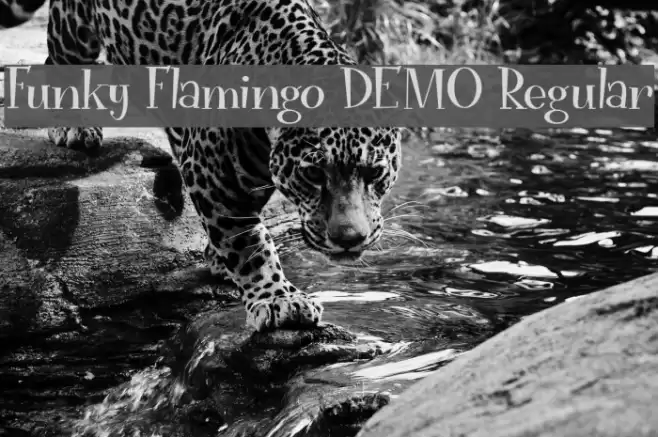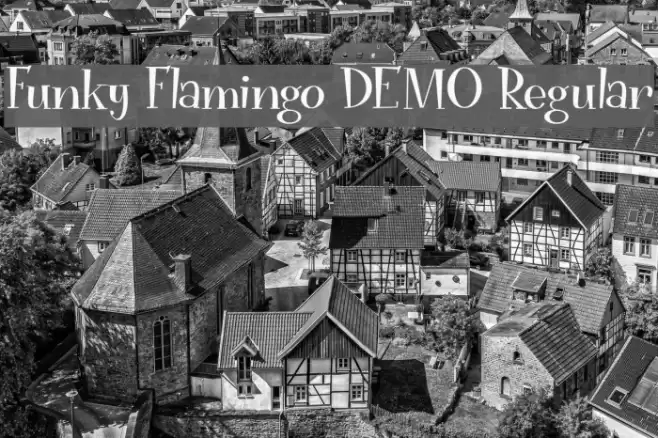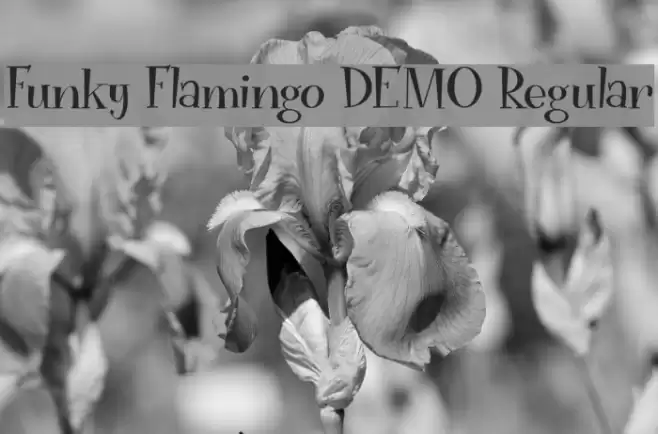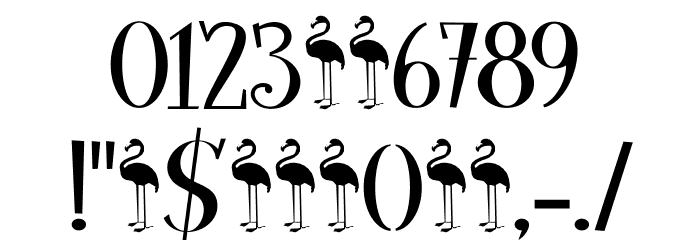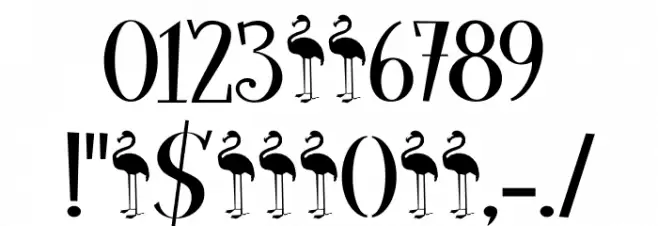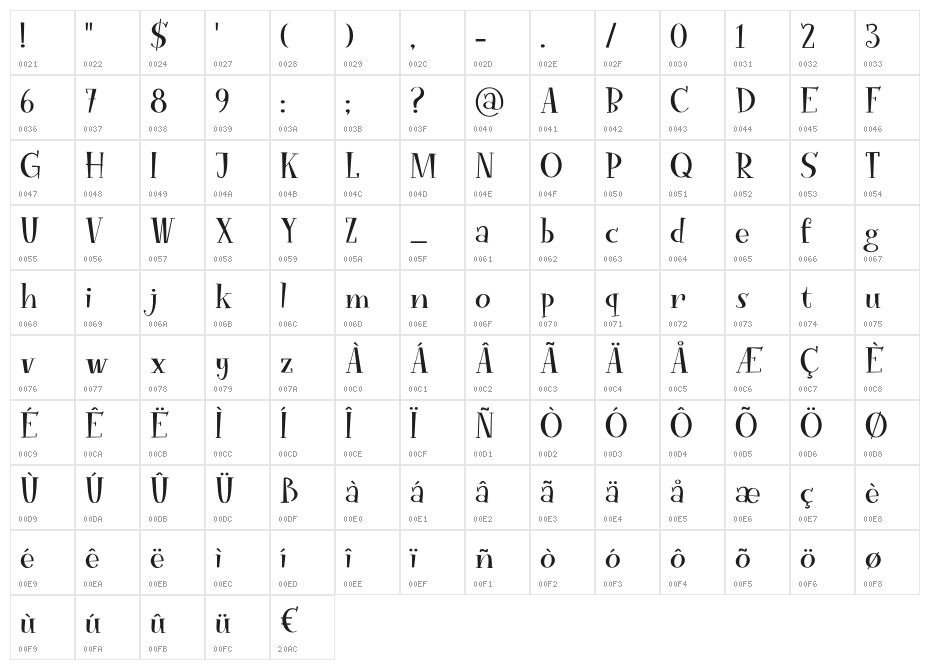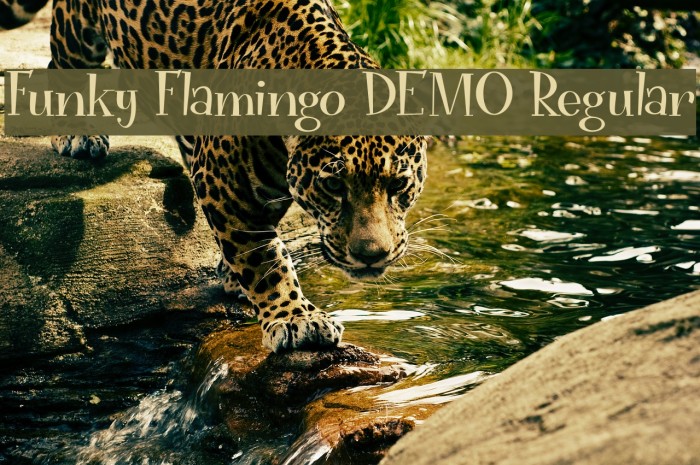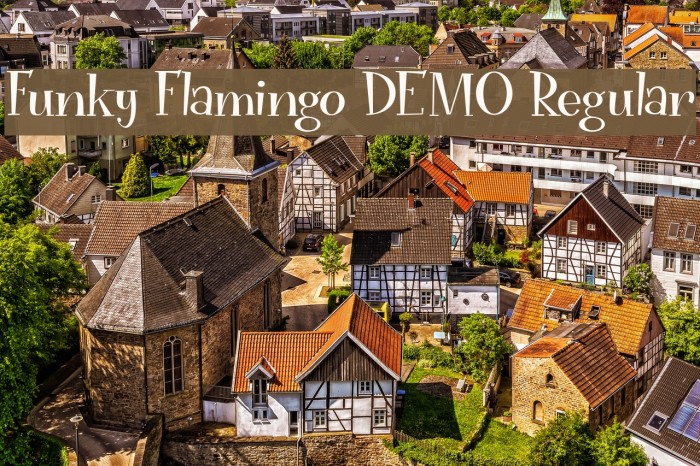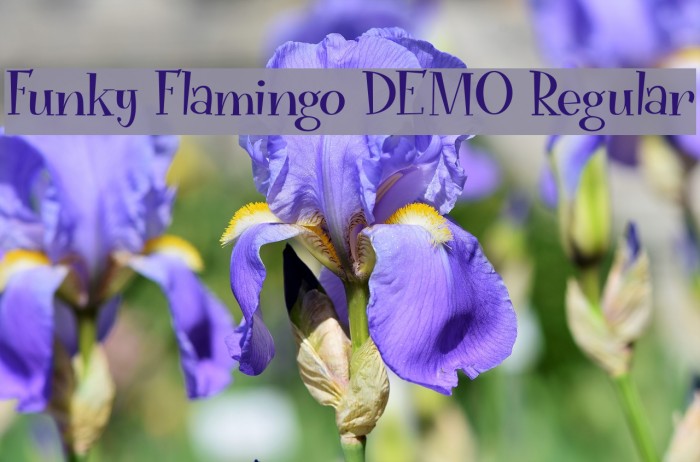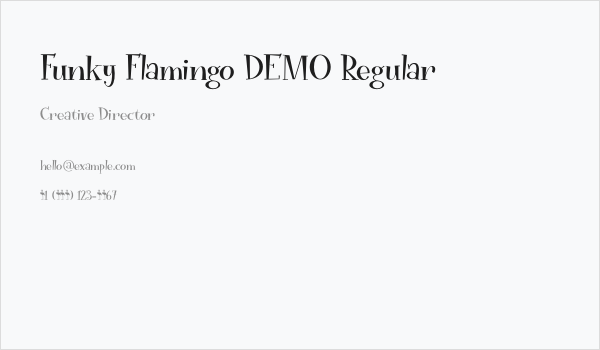
Funky Flamingo DEMO Regular Font
Funky Flamingo DEMO Regular Description
This font features a playful and whimsical design with a unique flair. The letters have a distinct, curvy style that gives them a lively and dynamic appearance. The uppercase characters are tall and slender, while the lowercase letters maintain a consistent flow with slightly exaggerated curves. The numbers and special characters incorporate creative elements, such as flamingo silhouettes, adding a decorative touch. The overall look is bold and eye-catching, making it suitable for projects that require a fun and engaging aesthetic.
A playful and whimsical font with curvy, dynamic letters and decorative elements from Uncategorized fonts.
- Proposed Projects: Ideal for children's books, playful branding, party invitations, and creative posters.